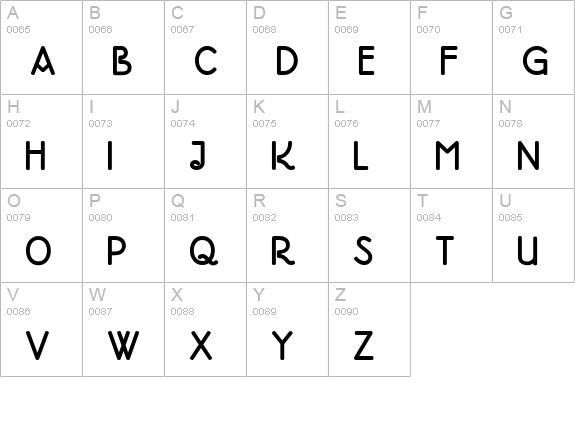
Doctor Jekyll NF font is a modern and stylish typeface that exudes elegance and sophistication. Its sleek lines and classic letterforms make it a versatile choice for a wide range of design projects. Whether you're creating invitations, logos, or branding materials, Doctor Jekyll NF font will add a touch of class to your work. The best part? Doctor Jekyll NF font is completely free to download at FontsMarket.com. This means you can elevate your designs without breaking the bank. Take advantage of this fantastic offer and enhance your projects with the timeless beauty of Doctor Jekyll NF font today.